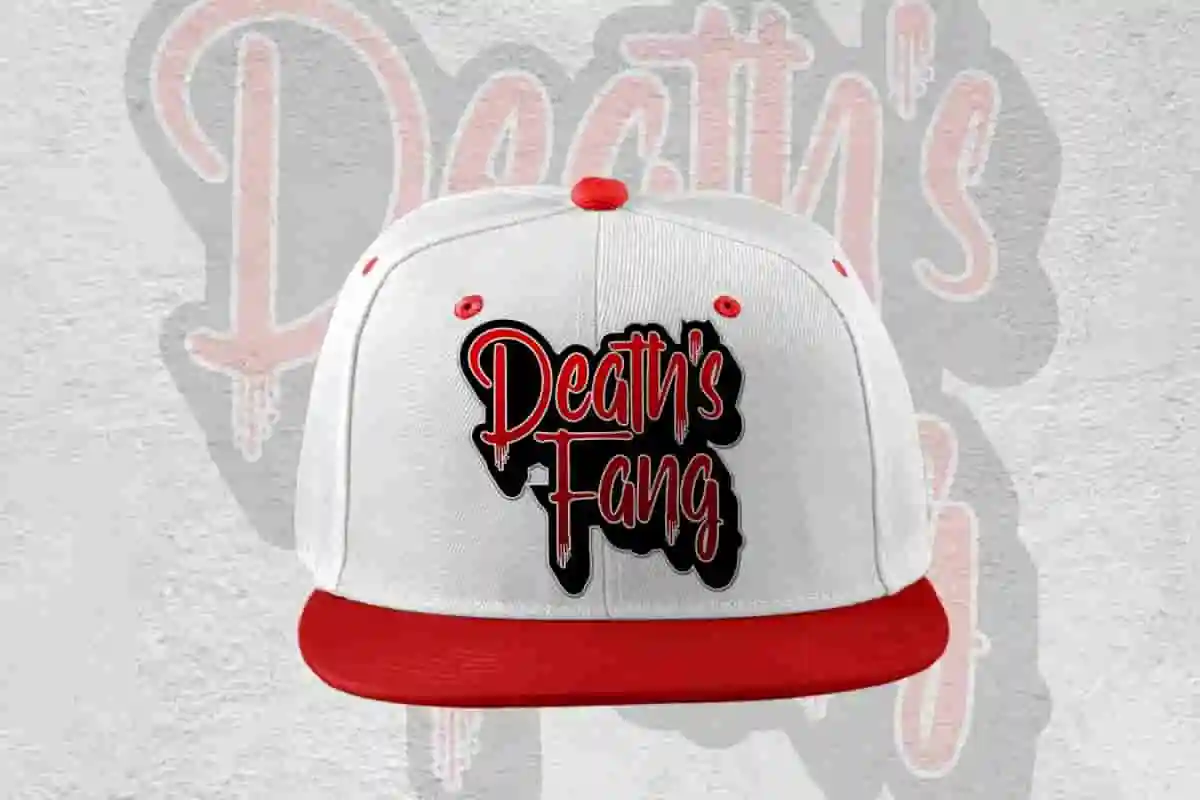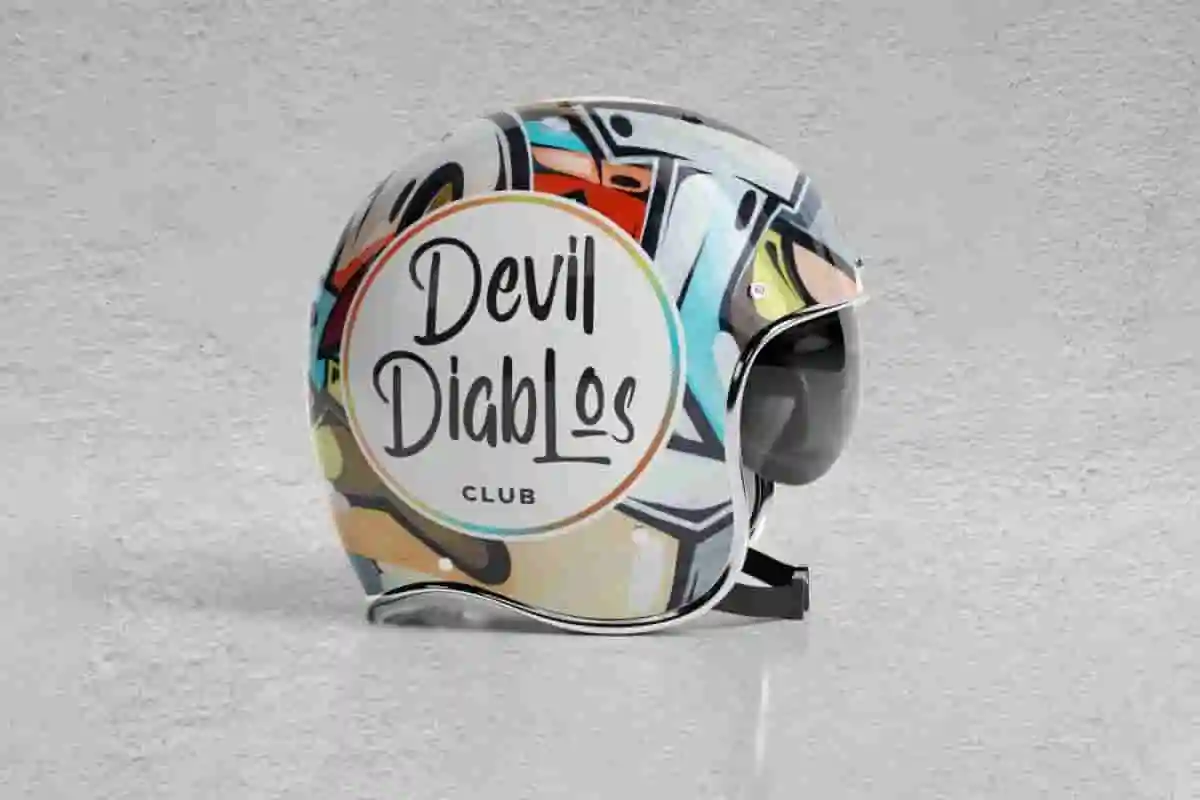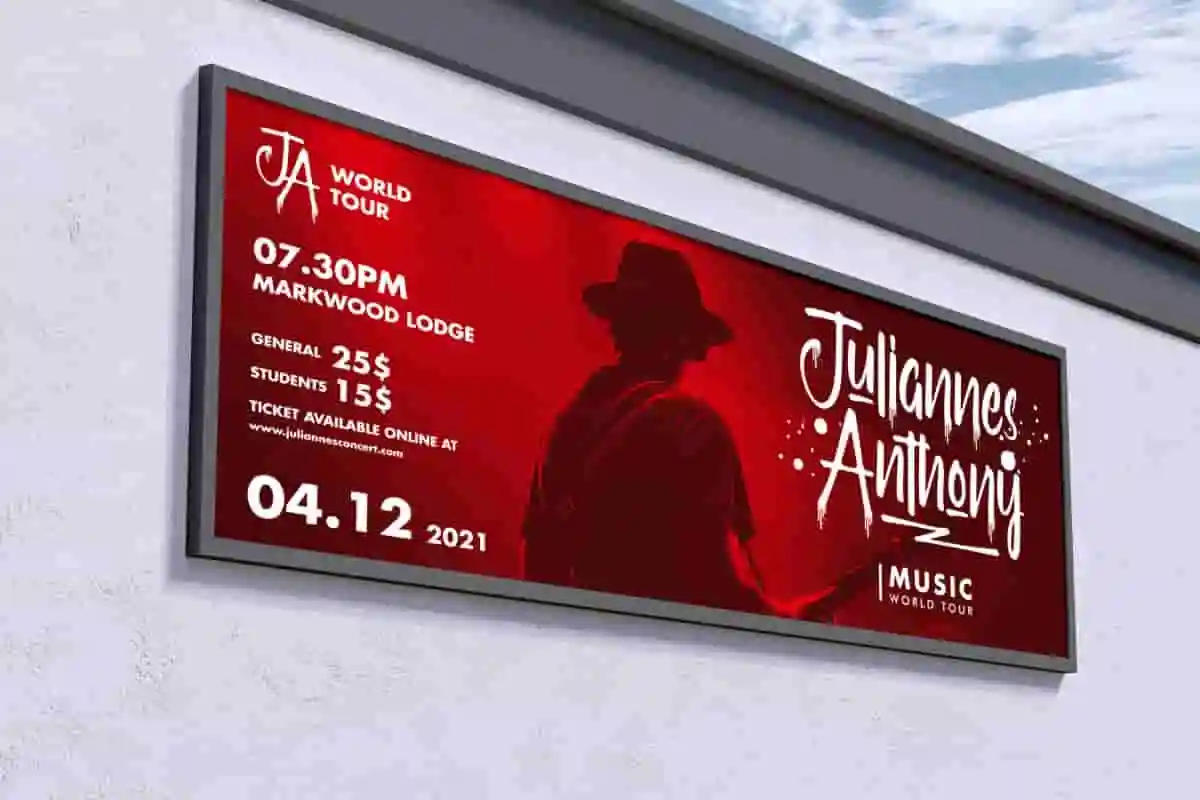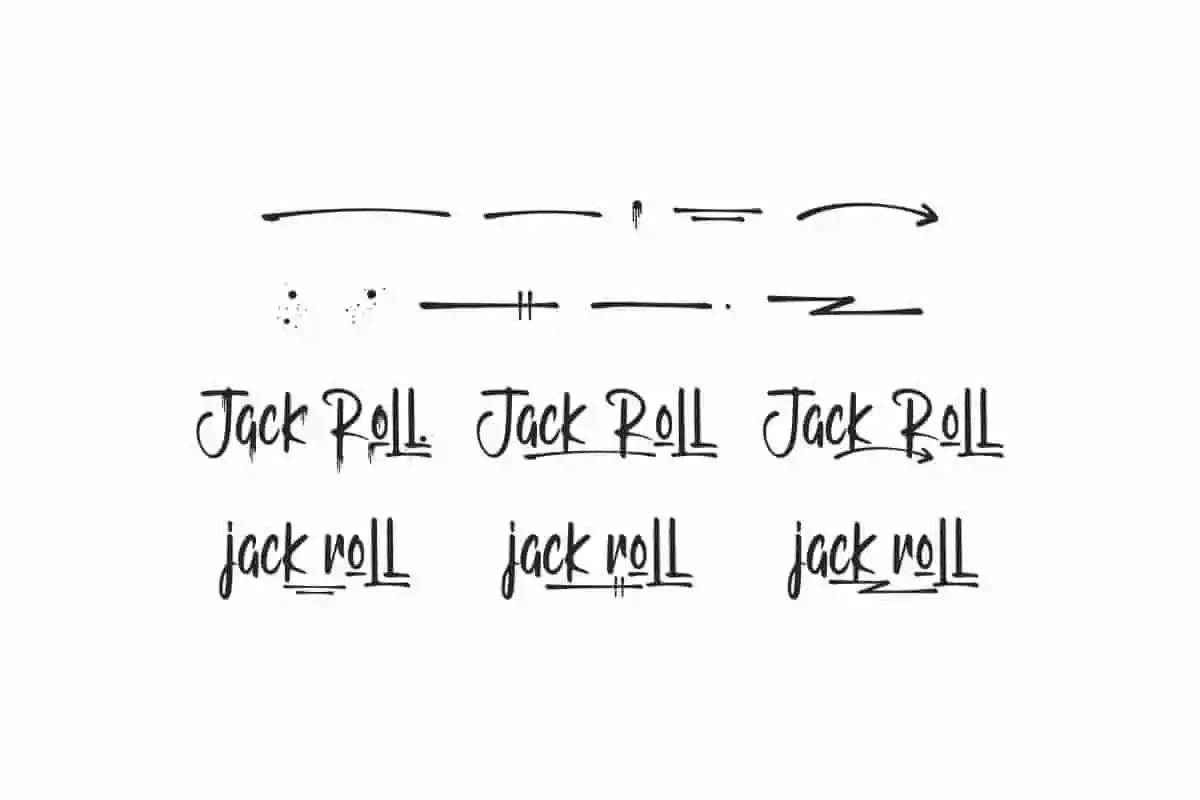
Jack Roll Graffiti Font is a display font by NihStudio, made in 2020. Great for headline, logo, poster, advertising, games etc.
Jack Roll Font is a display decorative font family with Graffiti mural style. Originally designed by NihStudio. On the package you will get :
Handcrafted here in our Studio , Indonesia. Jack Roll Graffiti Font will be great for any projects (require extended license) including : branding, logo, stationery, business card, signage, flyer, brochure etc.